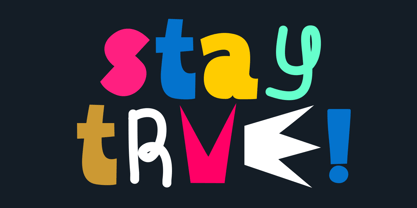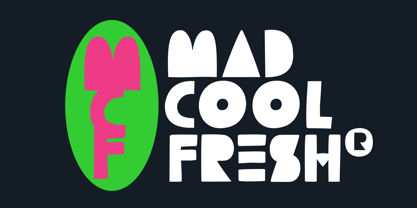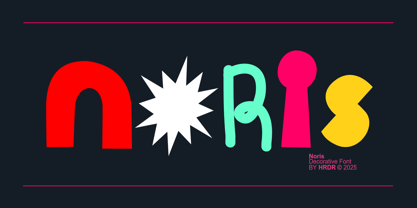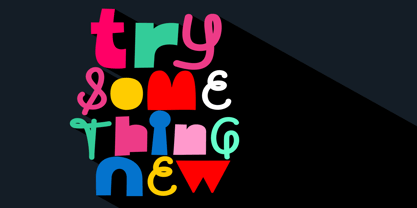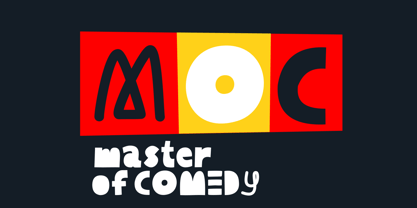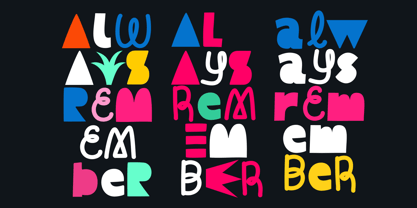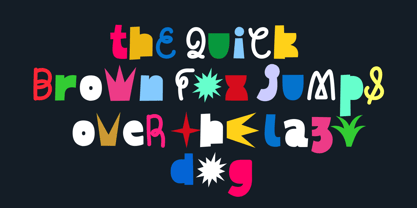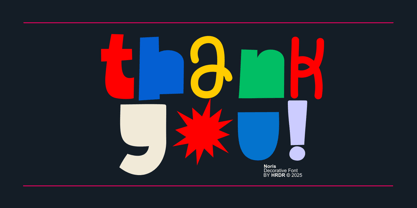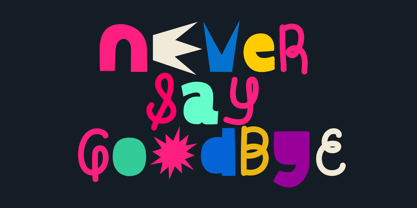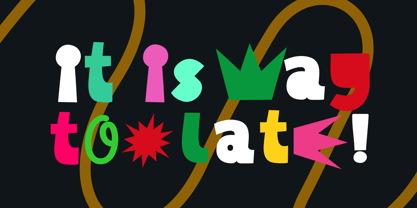
Noris
by HRDR
The Noris Font Family was designed by Dede Mulyadi and published by HRDR. Noris contains 1 styles.
Noris is a Decorative font that is modern, elegant and cool, this font looking elegant, classy, modern, stylish, up-to-date and easy to use. Noris meant for branding, It's great for Logo, headlines and titles, perfect for crafting, branding, invitation, stationery, wedding designs, social media posts, advertisements, product packaging, product designs, label, Posters, photography, special events, or anything.
Designers: Dede Mulyadi
Publisher: HRDR
Foundry: HRDR
Design Owner: HRDR